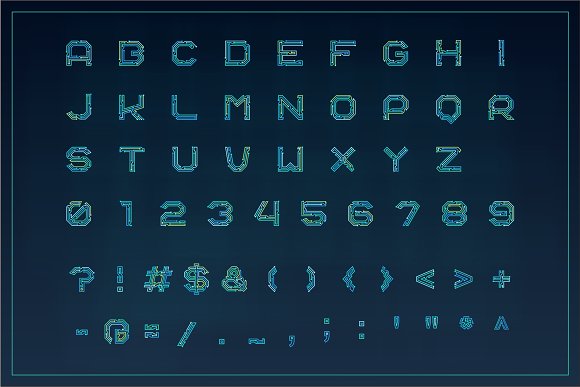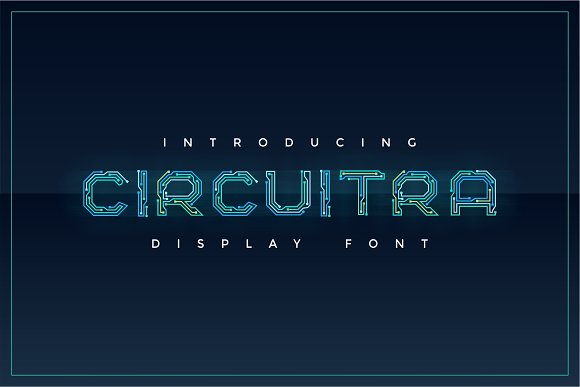
Circuitra is a display font inspired by circuit components residing in electronic objects, made more into technology, digital and modern fonts. This font is suitable for advertising, book title, cover or magazine, poster, t-shirt, and more.
Circuitra Color Font